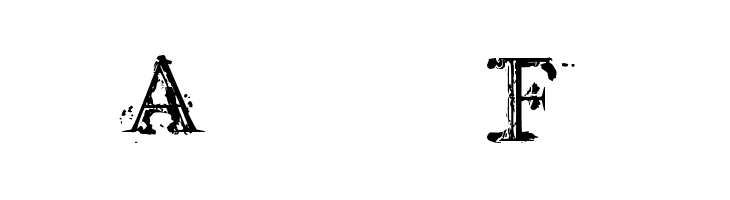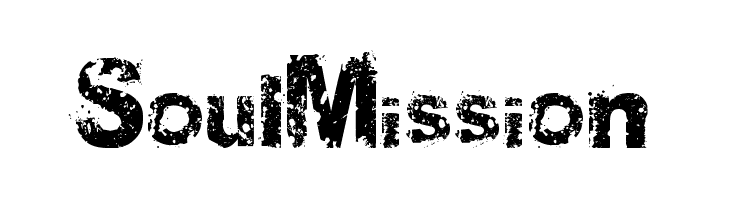
A playful, informal handwritten font with dynamic strokes.
A dynamic font with sharp angles and lightning bolt motifs, perfect for energetic designs.
A bold, futuristic font with angular, energetic design elements.
A dynamic, italicized font with sharp angles and a futuristic style.
A futuristic and geometric font with bold, abstract characters.
A playful, chalkboard-style font with a casual and friendly vibe.
A bold, textured font with a playful and whimsical style.
A bold, geometric font with sharp, angular edges and a modern aesthetic.
A playful, dripping paint-style font with irregular, artistic shapes.
A playful, decorative font with bold characters enclosed in circles.
A bold, industrial font with characters enclosed in chain-linked frames.
A bold, playful font with a hand-drawn, quirky style.
A playful, bacon-themed decorative font with a hand-drawn style.
A bold, distressed font with a rugged, vintage appearance.
A bold, geometric stencil-style font with a modern, industrial feel.
A bold, geometric stencil-style font with sharp, angular edges.
A bold, angular, and italic font with a futuristic and dynamic style.
A bold, italicized font with a geometric and angular design, perfect for modern projects.
A bold, distressed font with a grunge, eroded appearance.
A bold, italicized, distressed font with a pixelated, grunge aesthetic.
Bold, blocky characters enclosed in square outlines with a playful, stencil-like appearance.
An edgy, hand-drawn font with sharp, angular lines and a dynamic appearance.
A bold, geometric font with sharp, angular characters.
A playful, whimsical font with bold, rounded characters and decorative elements.